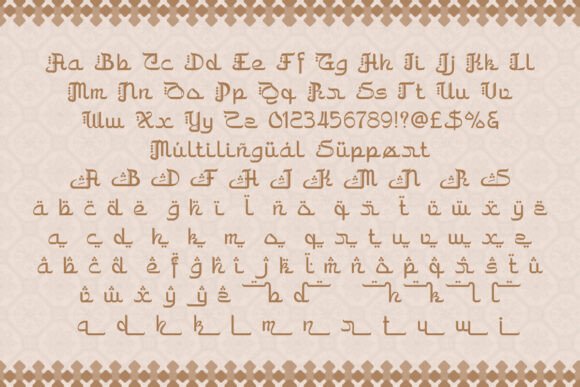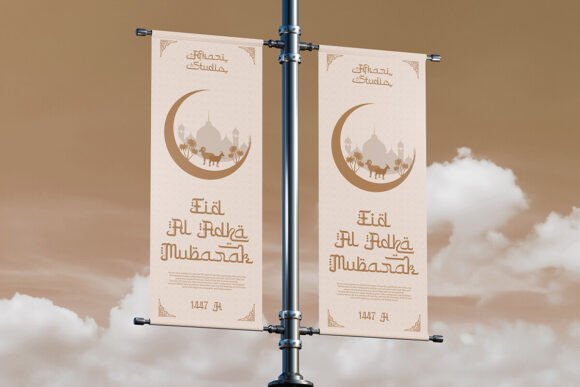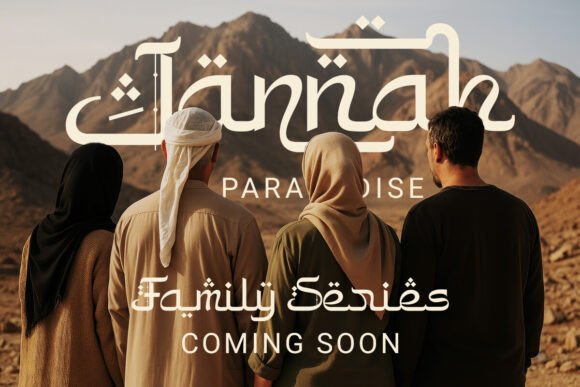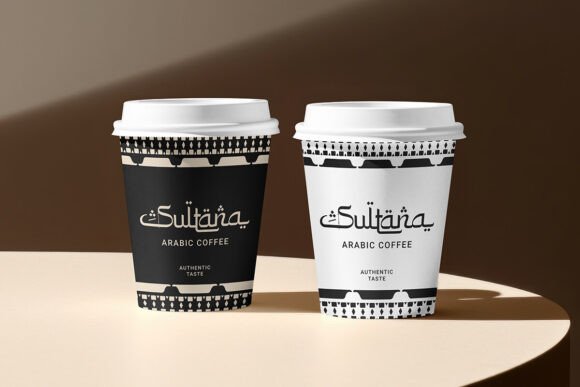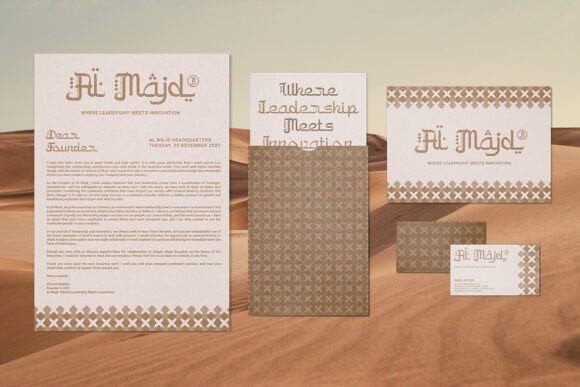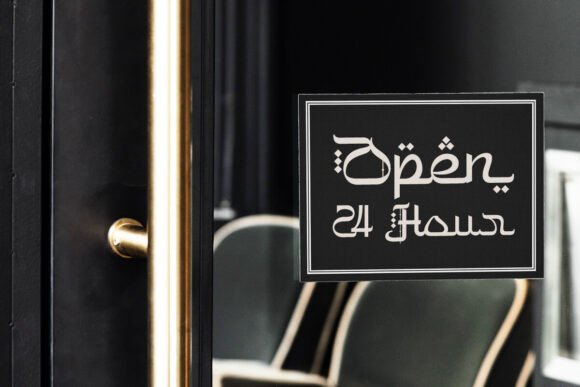
Where Culture Meets Design: The Power of Alami Font
As a designer, have you ever struggled to infuse your work with the authentic charm of another culture? You’ve poured over reference images, consulted with experts, and still can’t quite capture the essence of the language and aesthetic you’re trying to convey. This is where the Alami Font comes in – a modern Arabic script typography that beautifully blends classic calligraphy with a sleek, contemporary touch.
Designed for versatility and visual impact, the Alami Font is the perfect tool for designers seeking to add cultural depth to their work. Whether you’re crafting visuals for Ramadan and Eid, designing a halal brand, or simply looking to add a touch of Arabic flair to your packaging or social media content, the Alami Font helps your message feel authentic, warm, and full of character.
Alami Font Key Features
- Font Family: Alami Font is a unique, hand-drawn script font that offers a natural, handwritten feel.
- Character Set: Includes a wide range of characters, including uppercase and lowercase letters, numerals, punctuation marks, and special characters, making it suitable for various languages.
- Size: Available in multiple font sizes, including 400, 500, 600, 700, 800, and 900, allowing for flexibility in design and layout.
- Resolution: Optimized for high-resolution displays, ensuring clear and crisp text rendering on modern devices and screens.
- Unique Characteristics: Alami Font features subtle variations in letterforms, giving it a natural, handwritten feel, and making it ideal for creative and design projects.
Alami Font Review
At first glance, Alami Font seems to have a lot going for it. Here are some things that work well:
- ✨ The unique script style adds a touch of elegance to any design. It’s perfect for creating a sophisticated, high-end look.
- ✨ The font is highly legible, even at smaller sizes, making it suitable for body text and other content-heavy areas of a design.
- ✨ The Alami Font family is quite extensive, offering a range of weights and styles to choose from, giving designers plenty of options to customize their designs.
- ⚠️ The font may not be suitable for projects that require a more playful or informal tone, as its script style can come across as somewhat formal.
- ⚠️ Some users may find the font to be a bit too ornate, which can make it difficult to read in certain situations.
Overall, Alami Font is a solid choice for designers who want to add a touch of sophistication to their projects. While it may not be the best fit for every design, its unique style and extensive family make it a versatile option for a range of applications.
Alami Font is ideal for creating modern and elegant designs. Use it for:
1. Branding and logos.
2. Digital marketing materials.
3. Print materials such as business cards and brochures.
4. Web design elements.
5. Any project that requires a sophisticated and refined look.